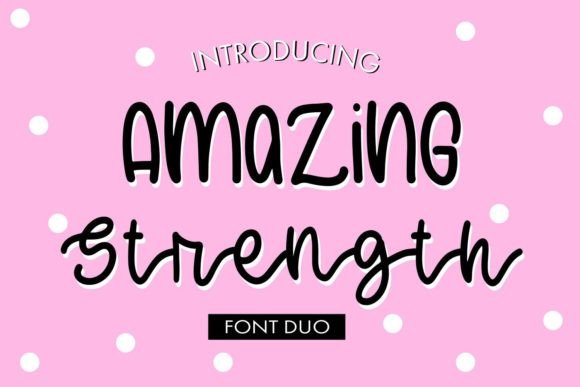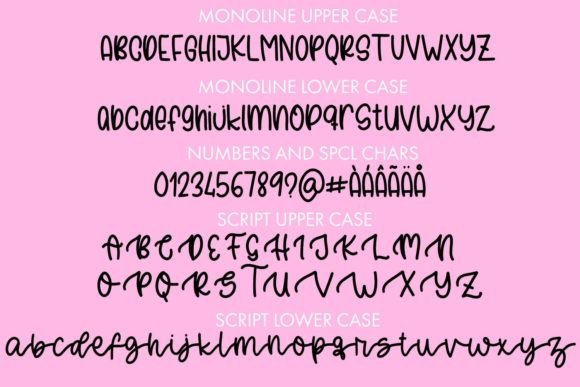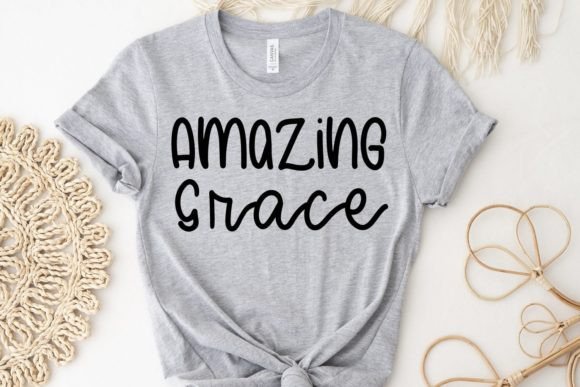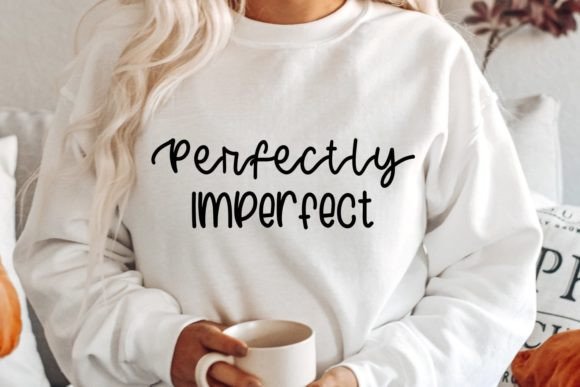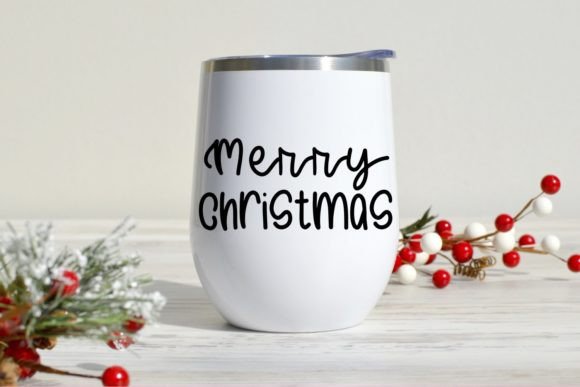
Amazing Strength Font
About Amazing Strength Font
“Amazing Strength” is a delightful and playful handwritten font duo that combines fun script with quirky funky letters, creating a unique and lively visual experience. This font duo is tailor-made for individuals seeking a blend of creativity and spontaneity in their projects. Whether you’re working on personal crafts, DIY projects, or professional designs, “Amazing Strength” adds a touch of whimsy and character, making your creations stand out.
The script font in this duo exudes charm and warmth, capturing the essence of handwritten elegance. Its flowing strokes and natural curves give your text a personalized and inviting feel, making it ideal for various applications, from greeting cards and invitations to social media posts and branding materials. The script font adds a touch of sophistication while maintaining a friendly and approachable vibe.
Complementing the script font, the funky letters in “Amazing Strength” bring an element of playfulness and creativity to your designs. These letters are unconventional and full of character, making them perfect for eye-catching headlines, logo designs, or any project where you want to infuse a sense of fun and energy.
One of the strengths of “Amazing Strength” lies in its versatility. Whether you’re a designer working on professional projects or an enthusiast embarking on DIY adventures, this font duo offers endless possibilities. It allows you to experiment with various styles, creating dynamic and visually appealing compositions. The combination of the elegant script and funky letters provides you with a wide range of design options, ensuring that your projects are as unique and vibrant as your imagination.
Using “Amazing Strength” in your projects not only adds a playful and quirky touch but also conveys a sense of creativity and originality. Your designs will radiate energy and positivity, capturing the attention of your audience and leaving a memorable impression. Whether you’re designing posters, merchandise, or digital content, this font duo injects a dose of fun and excitement into your creations.
So, embrace the playful spirit of “Amazing Strength” and let your creativity run wild. Explore the endless possibilities this font duo offers, and watch how it transforms your projects into visually engaging masterpieces. Whether you’re a professional designer or someone passionate about DIY crafts, “Amazing Strength” is your go-to choice for infusing joy and character into every creative endeavor.